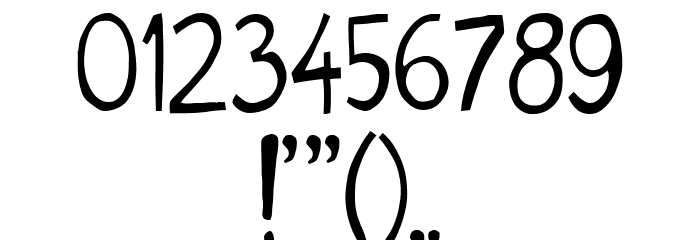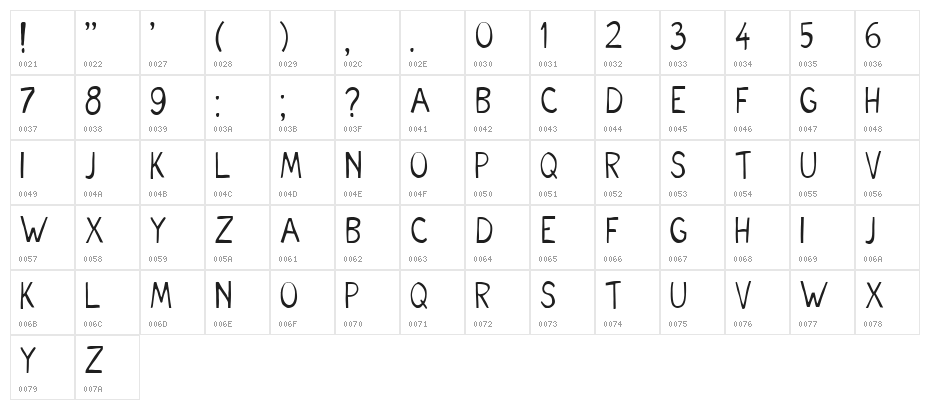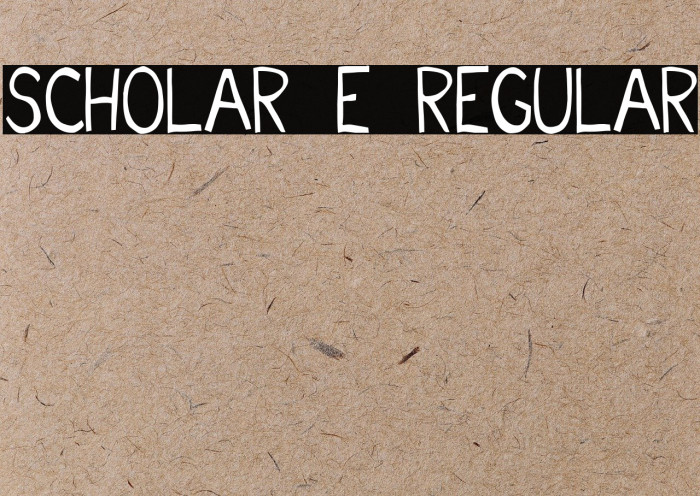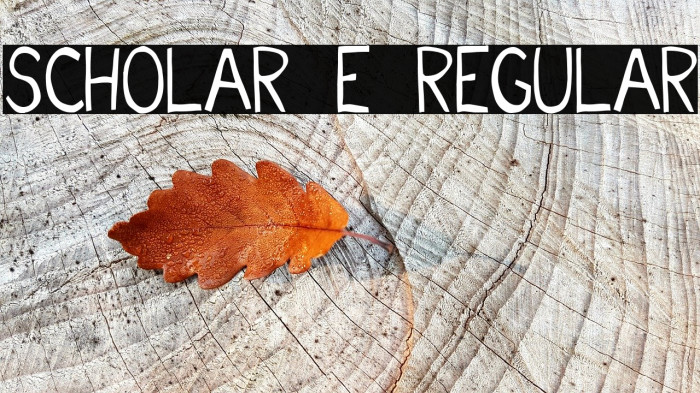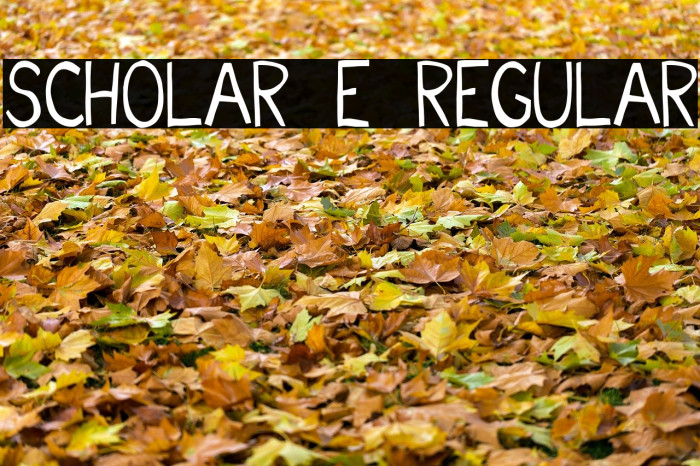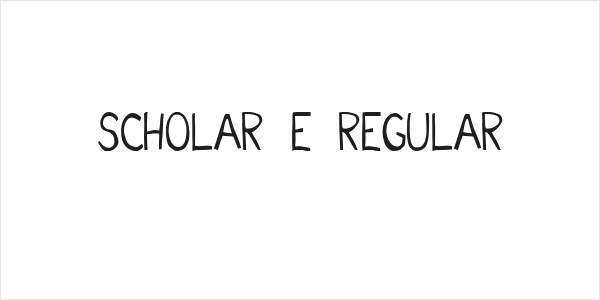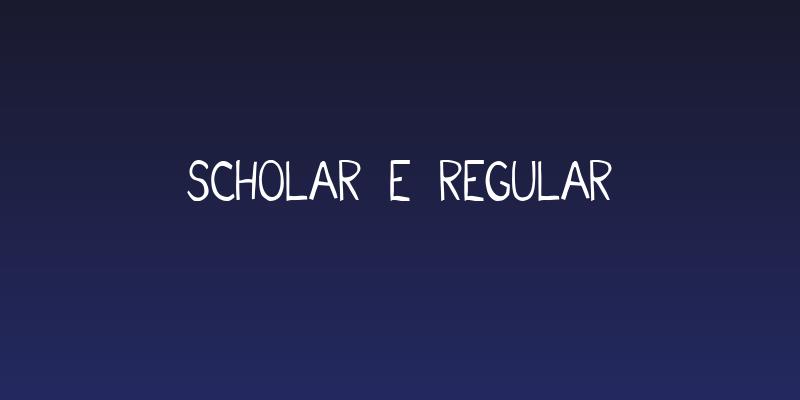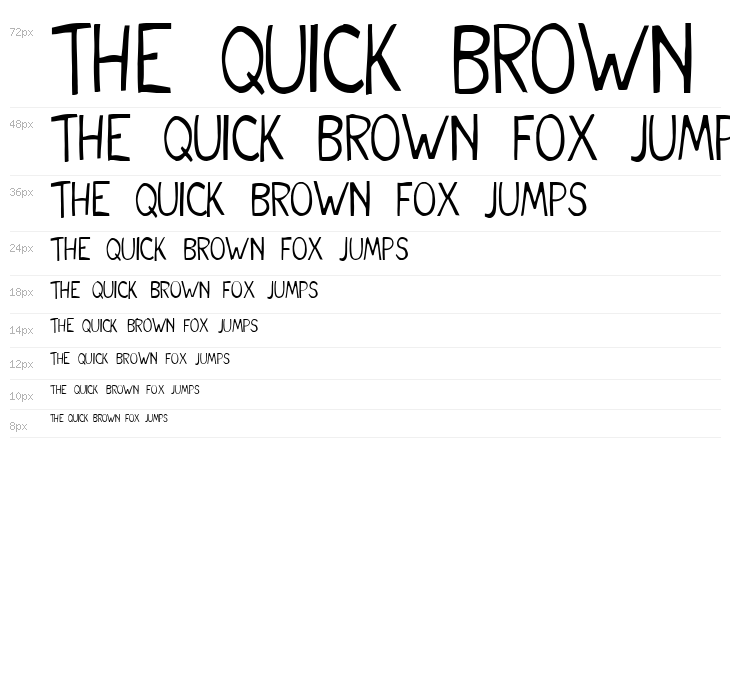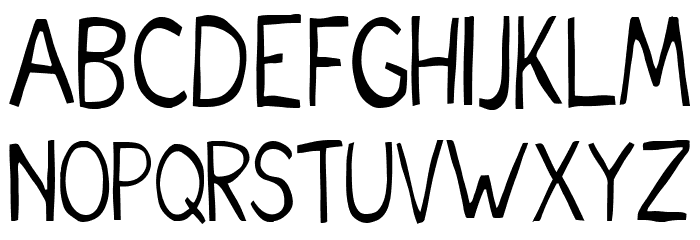
Scholar E Regular Font
Scholar E Regular Description
This font features a playful and informal style, characterized by its hand-drawn appearance. The letters have a slightly uneven stroke, giving them a casual and approachable feel. The uppercase and lowercase letters maintain a consistent style, with rounded edges and a slight tilt that adds to the whimsical nature of the font. The numerals and special characters follow the same design principles, ensuring a cohesive look across all elements. The overall design is reminiscent of handwriting, making it suitable for projects that require a personal touch.
| Proposed Projects | Ideal for children's books, greeting cards, informal invitations, and creative projects that benefit from a personal touch. |